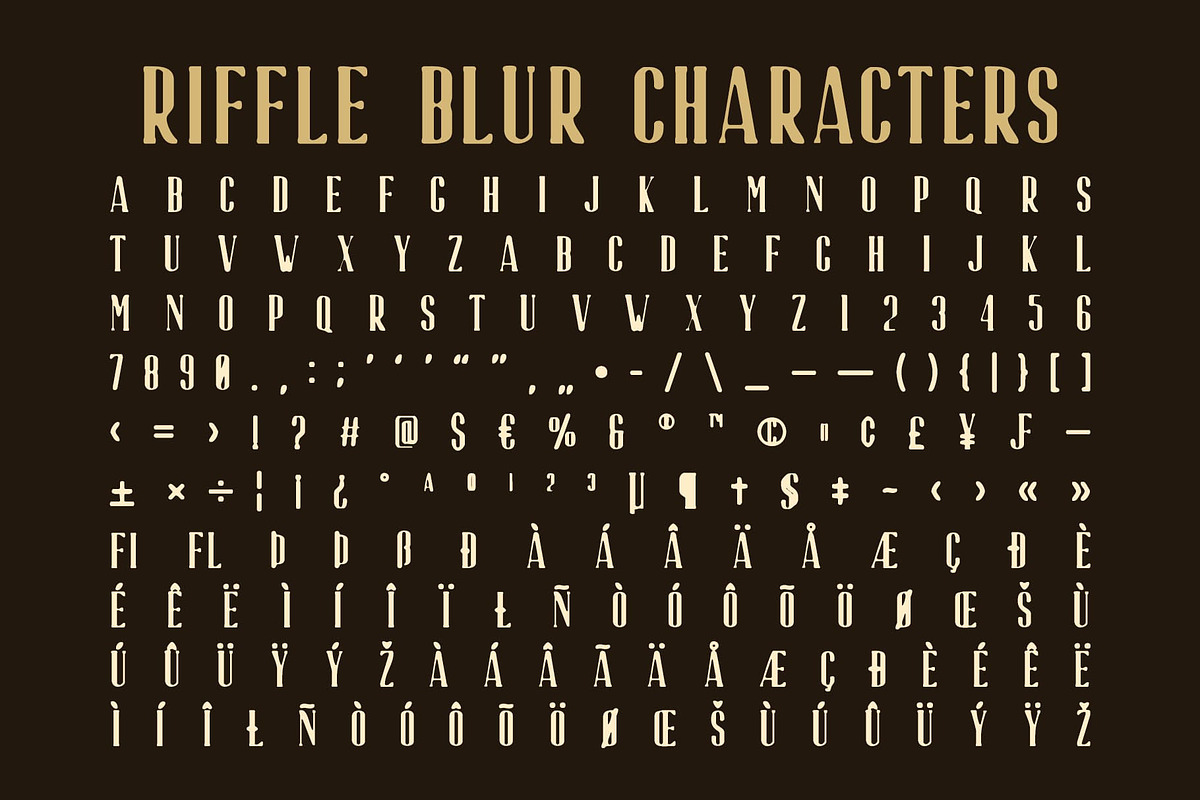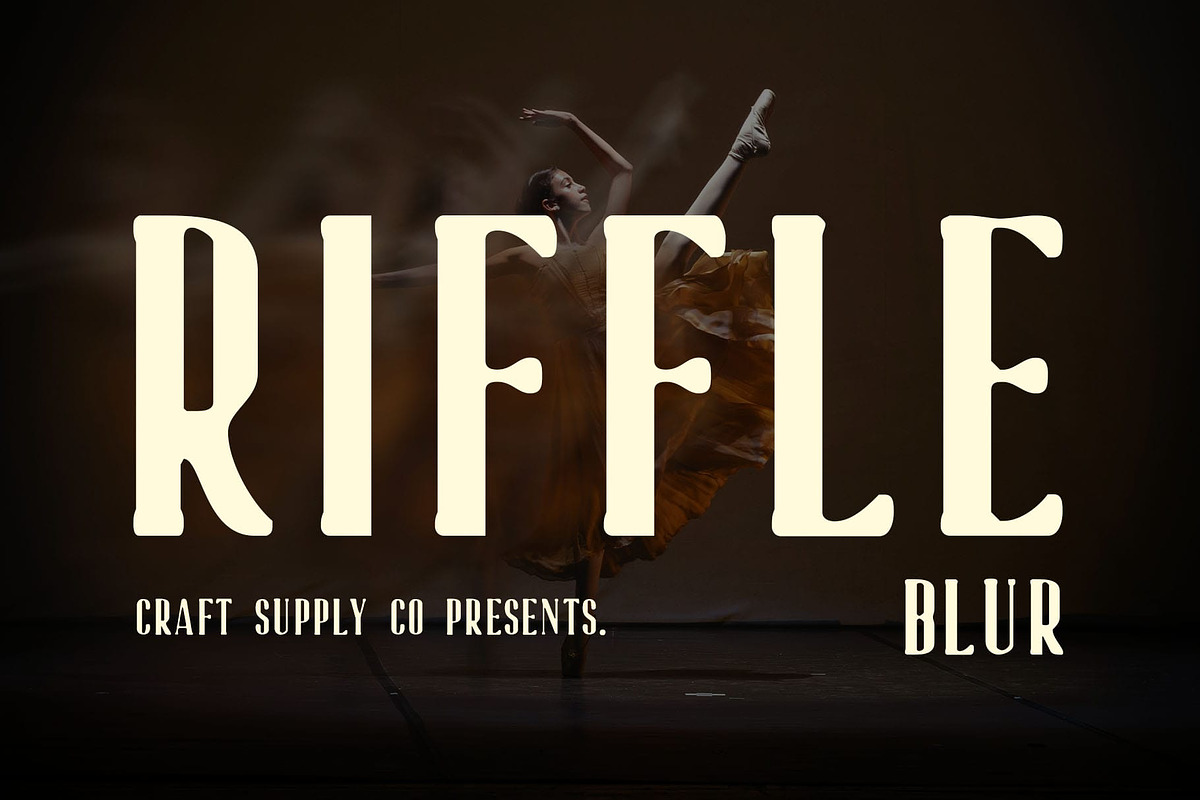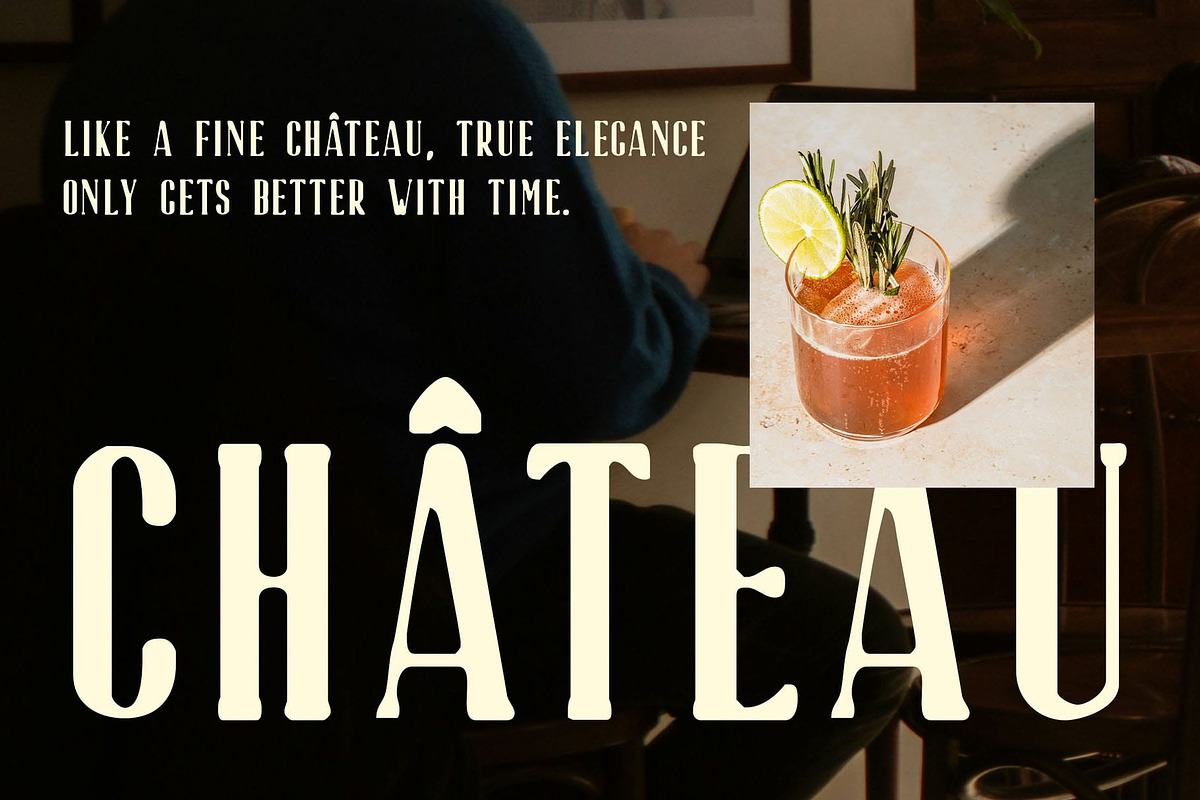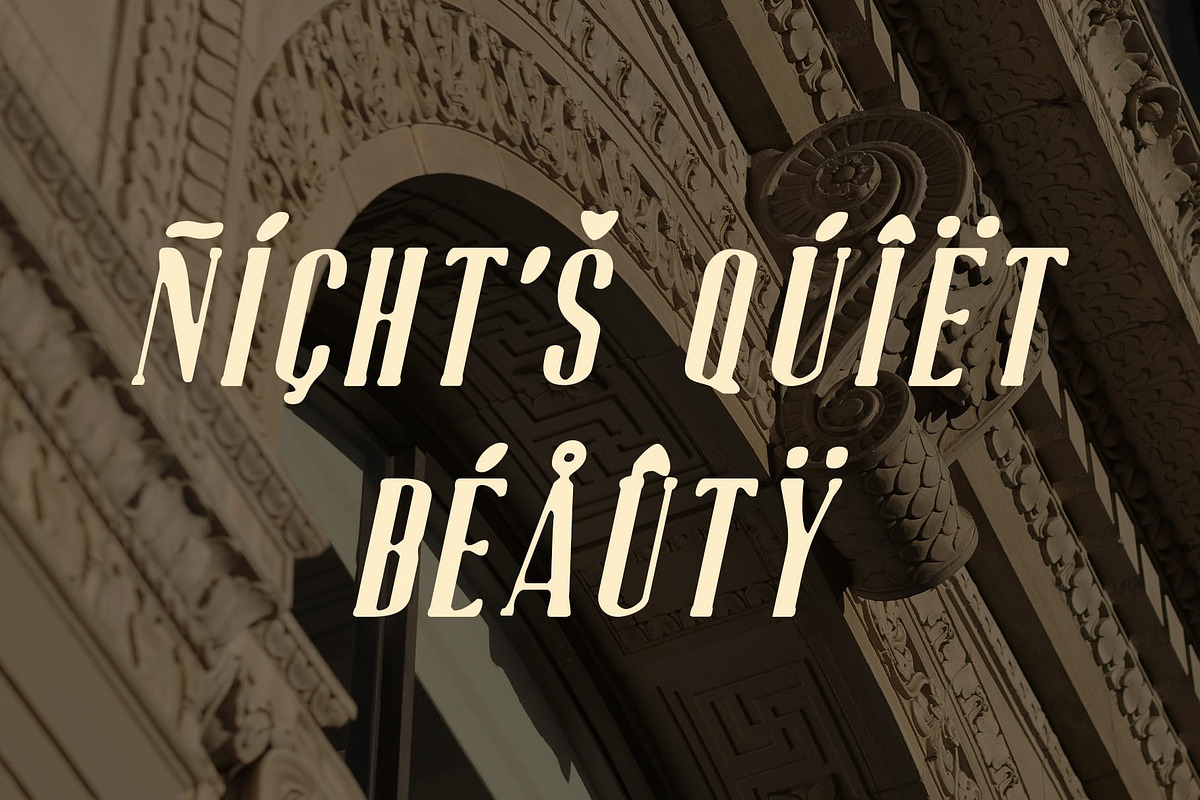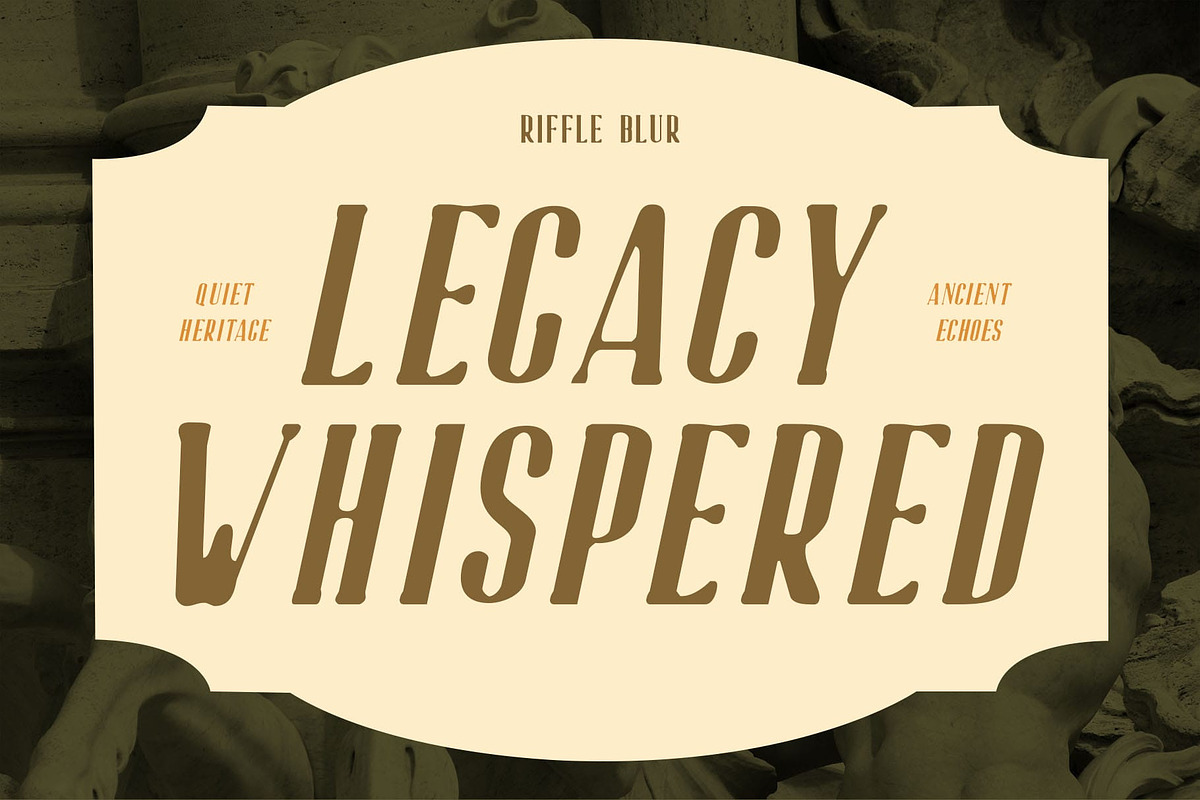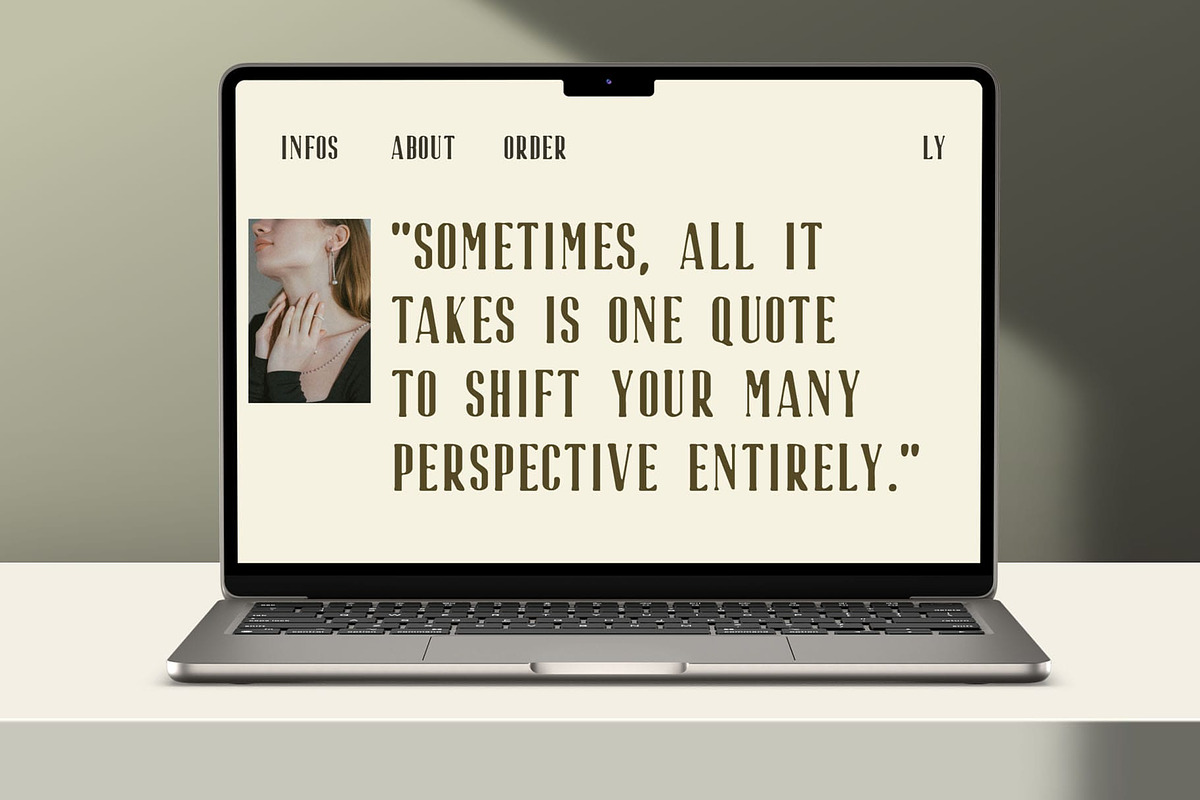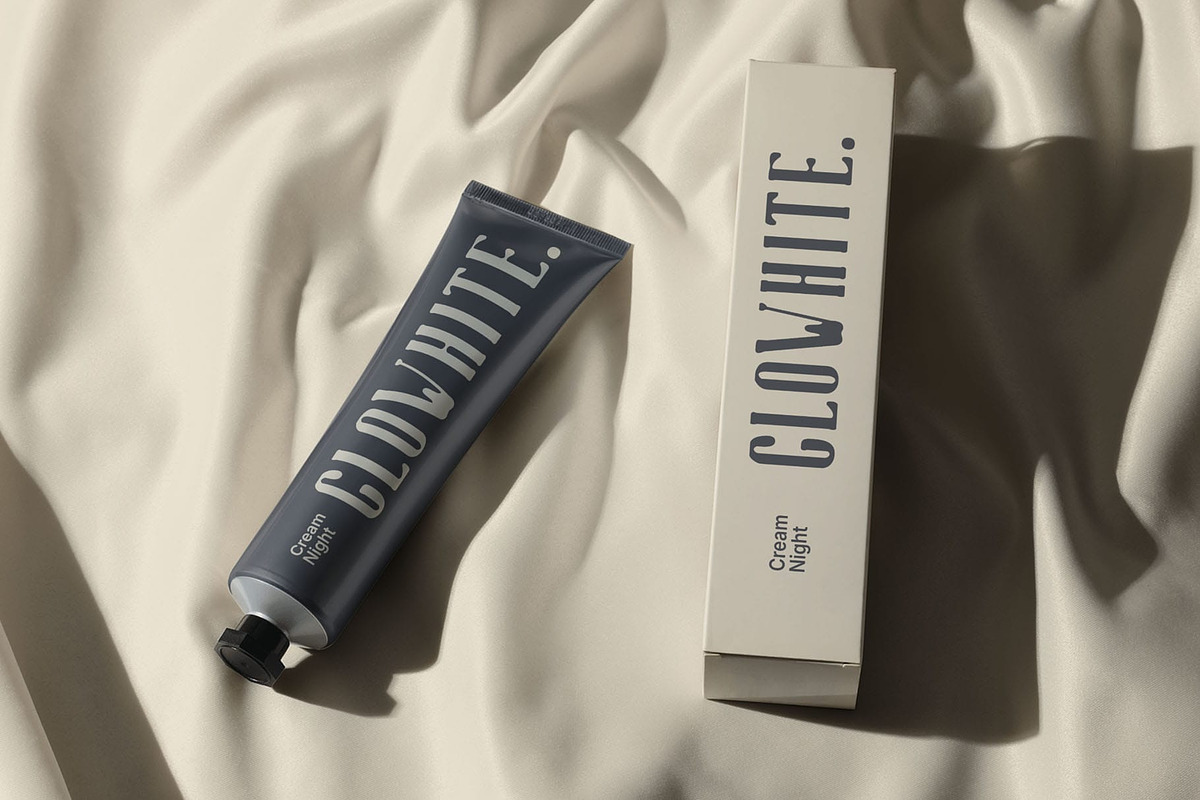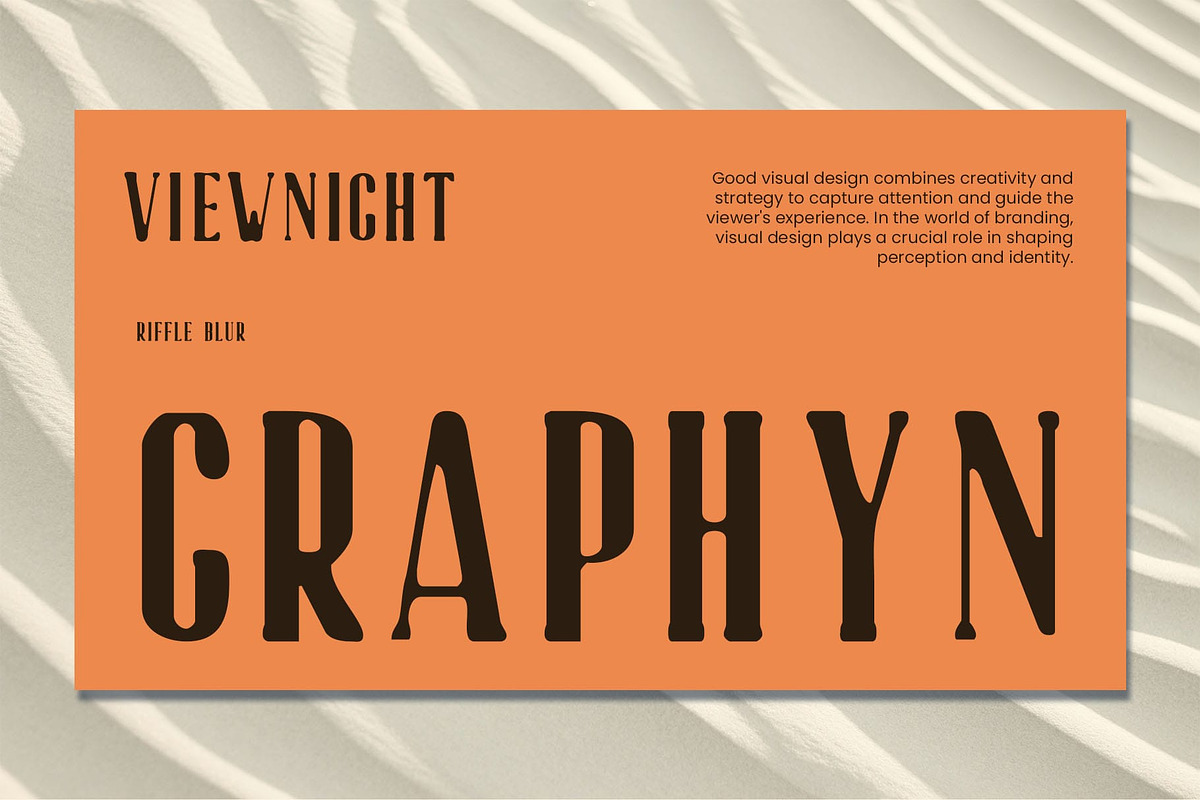
Riffle Blur
Riffle Blur Font: Classic Elegance with a Modern Haze
Modern Serif with Blur Effect Riffle Blur is a modern serif font that embraces a slim, condensed form with minimalist precision and timeless elegance. Its refined structure and sharp serifs evoke a classic charm, while the contemporary layout makes it perfect for today’s aesthetic-forward designs.
Slim and Sophisticated Form Crafted with elegance in mind, Riffle Blur’s condensed proportions allow for space-efficient typography without sacrificing beauty. The sleek letterforms carry a graceful presence, ideal for high-end branding, editorial layouts, and refined visual storytelling.
Soft Blur for Artistic Dimension The signature blur effect introduces a dreamy, soft-focus layer to the font’s formal base. This artistic detail lends depth and texture, creating a sophisticated yet experimental vibe that elevates the typeface beyond traditional serif styles.
Perfect for Luxury and Aesthetic Designs Whether used in fashion editorials, product packaging, or elegant brand identities, Riffle Blur delivers a polished, upscale impression with creative flair. It’s a perfect choice for designers looking to combine grace, clarity, and modern softness in one beautiful font.
Timeless Meets Contemporary With its fusion of classic elegance and subtle modern blur, Riffle Blur offers versatility and style for a wide range of visual applications. It captures attention through poise and uniqueness, making every word feel like a statement.